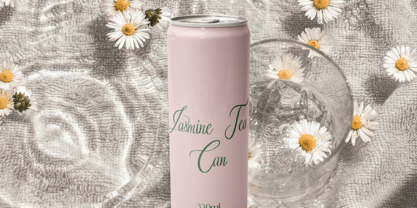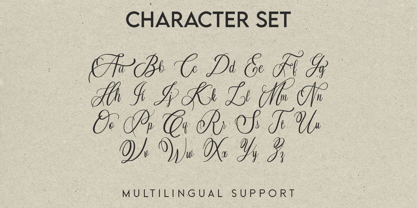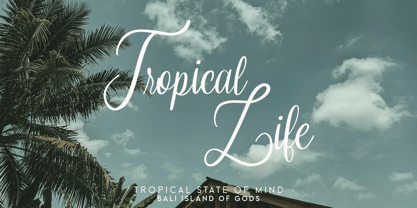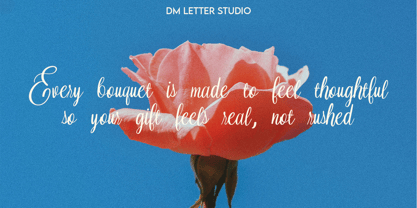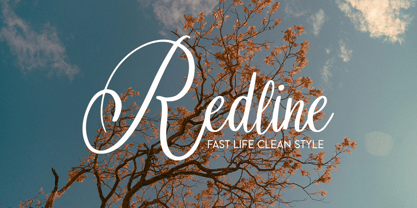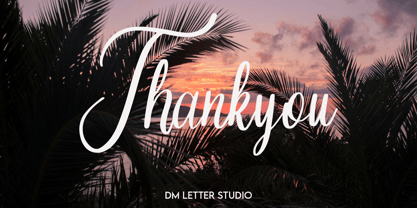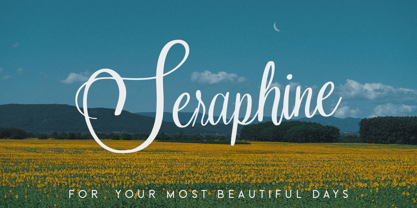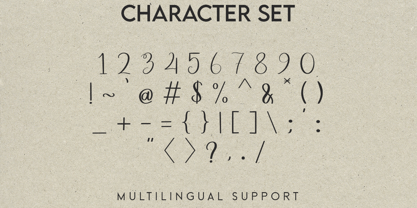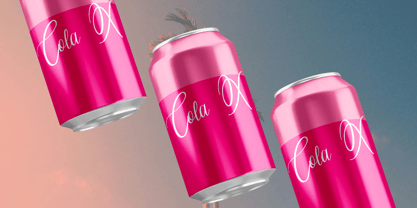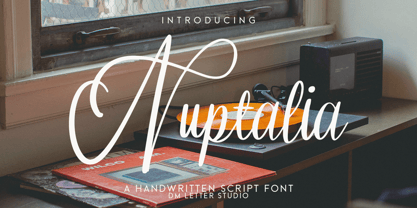
Nuptalia
Die Schriftfamilie Nuptalia wurde von Dimas Prasetyo entworfen und von DM Studio veröffentlicht. Nuptalia enthält 1 Stile. Mehr über diese Familie
Meet Nuptalia, the Handwritten Script Font Nuptalia is a romantic handwritten script font with smooth, flowing strokes that feel personal and heartfelt. Inspired by natural pen movement, it brings warmth and elegance without looking overly formal. The lines stay clean and balanced, so text remains readable at small sizes and expressive in larger statements. Use it for wedding stationery, love quotes, branding, invitations, packaging accents, and social media graphics. As a result, your designs feel intimate, graceful, and beautifully human. Why Nuptalia Script Font sells First, it installs easily and works smoothly in Canva, Photoshop, Illustrator, and most design apps. Next, the natural handwritten strokes export cleanly for both print and digital use. Then layouts come together faster because the letterforms connect naturally and space well. Moreover, Nuptalia pairs effortlessly with clean sans fonts and elegant serifs, making it easy to build balanced wedding and lifestyle designs. Therefore, it’s a strong choice for creators working on romantic and personal projects. Fast layouts with the Nuptalia Font Start with names, short phrases, or meaningful quotes and let the script flow naturally. After that, add details like dates or locations in a simple supporting font. Because Nuptalia feels light and fluid, it works especially well in airy layouts with generous white space. In addition, it shines on invitations, vow cards, logos, and signature-style branding. Finally, try palette pairs like blush & ivory, champagne & charcoal, sage & cream, or soft gray & white to enhance the romantic tone. Creative uses and quick wins Wedding invitations, save-the-dates, and vow cards Logo signatures and personal branding Quotes, captions, and social media overlays Packaging accents, labels, and thank-you notes What you get Uppercase and lowercase letters Numbers and basic punctuation Design tips for Nuptalia Handwritten Script Keep text concise so the handwritten flow stays elegant. Also, slightly increase line spacing for multi-line quotes to improve readability. For print, use light or textured paper stocks to enhance the handcrafted feel. Finally, export at 300 DPI for print and at 2× size for web so strokes stay smooth everywhere.